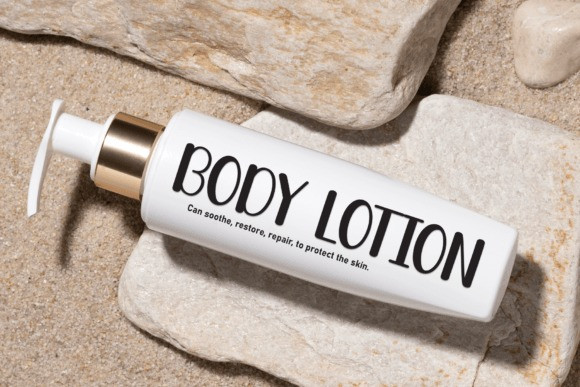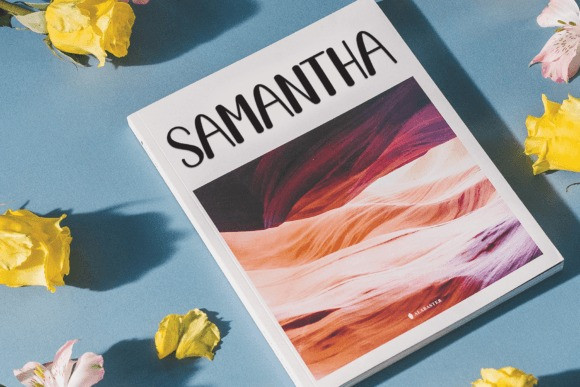
Christmas Shoes Font
Christmas Shoes Font, special creative products for you, our products will give you an extraordinary experience. the latest style letters are perfect for wall displays, wedding invitations, social media post logos, advertisements, product packaging, product designs, labels, photography, watermarks, invitations, stationery, and any project that requires taste handwriting.